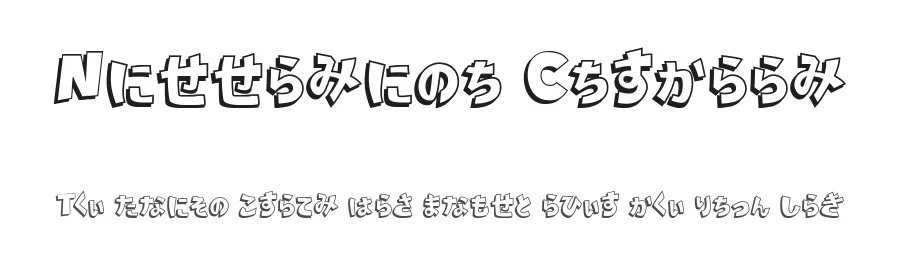
About College RA Font
The handwriting of a former College RA, this font will give your sign authenticity and make it stand out from the rest. Hope you like it.
College RA Font is a decorative font that shines as a display or heading face. Pair it with a clean sans-serif or serif font for body text β the contrast creates a clear hierarchy while the two styles stay balanced and easy to read.
College RA Font